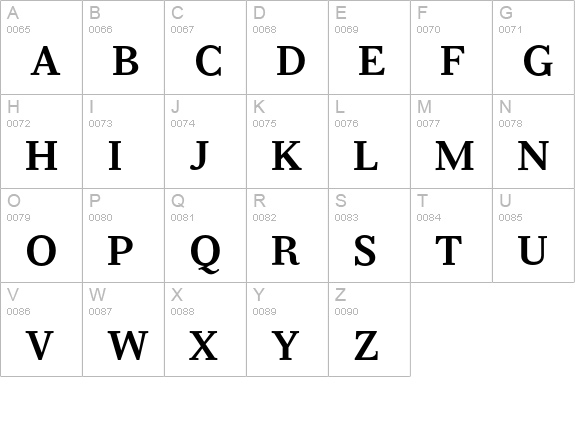
Serif6 Beta Bold is a strong, high-contrast variant in the Serif6 typeface family \xE2\x80\x94 well suited to headlines, attention-grabbing titles, and strong calls-to-action.
Serif6 Beta Bold is a versatile and modern font that exudes sophistication and elegance. With its bold and strong presence, this font commands attention and makes a statement in any design project. The crisp and clean lines of Serif6 Beta Bold lend a touch of professionalism and refinement to any text, making it ideal for a wide range of applications. What sets Serif6 Beta Bold apart is not only its aesthetic appeal but also its versatility. Whether used for headlines, body text, or graphic design elements, this font delivers a polished and professional look that is sure to impress. Its bold weight adds a sense of authority and impact, making it perfect for conveying important messages or emphasizing key points. One of the best features of Serif6 Beta Bold is that it is completely free to download. You can easily access this stylish font at FontsMarket.com, where you can unleash your creativity and elevate your design projects with this sleek and modern typeface. So why wait? Download Serif6 Beta Bold now and take your designs to the next level!